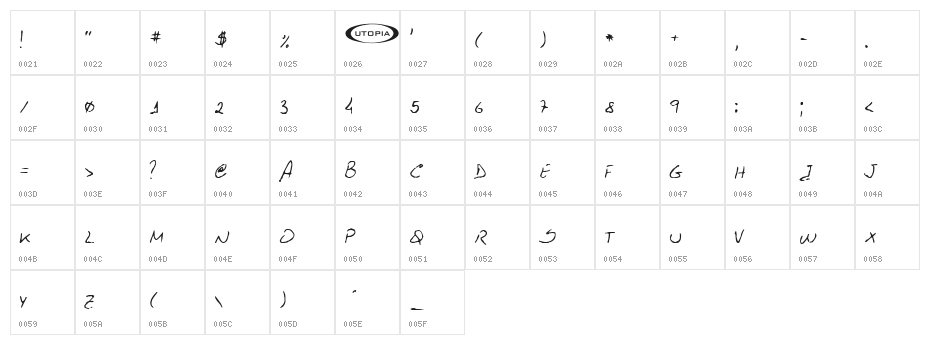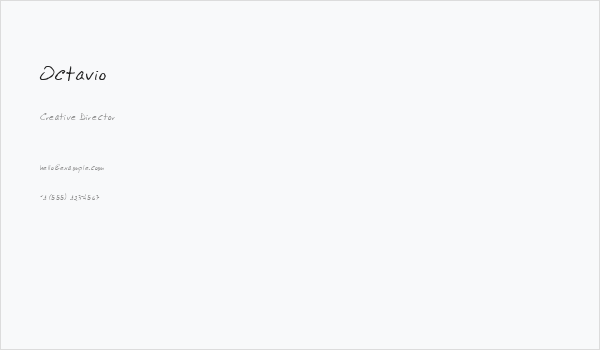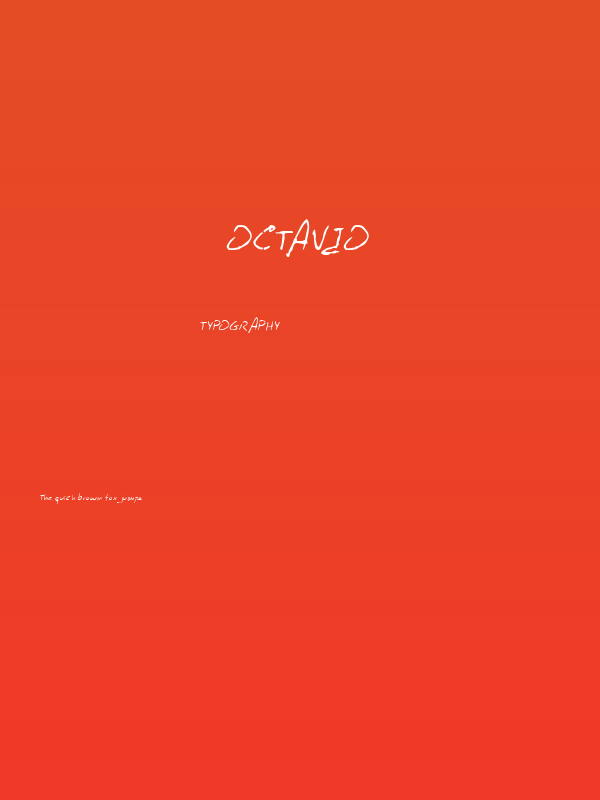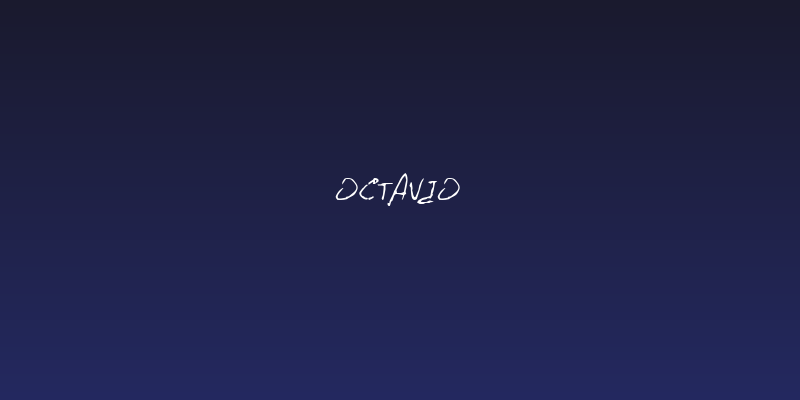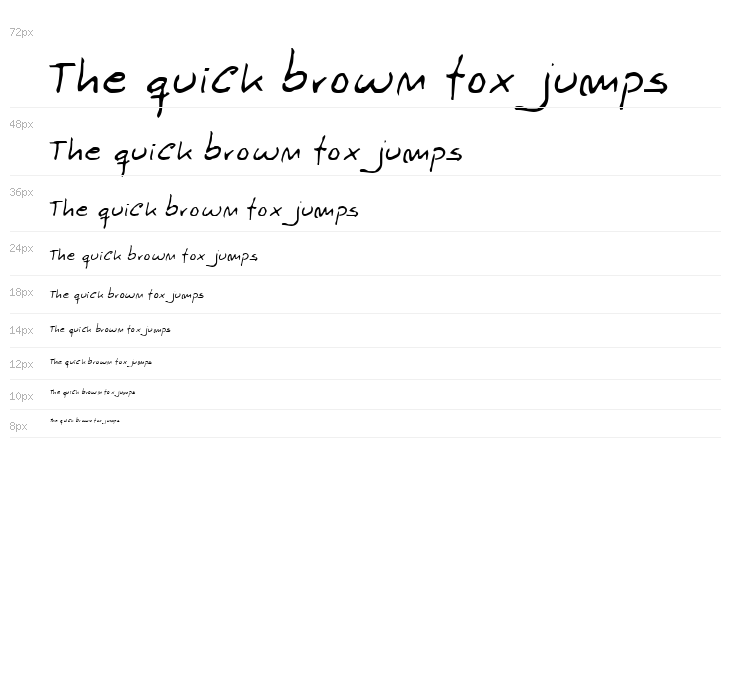
Octavio Font
Octavio Description
This font exhibits a unique handwritten style, characterized by its fluid and organic strokes. The letters are slightly slanted, giving a casual and informal appearance. The uppercase and lowercase letters maintain a consistent style, with some letters featuring distinctive loops and curves. The numerals and special characters are designed to match the overall aesthetic, ensuring a cohesive look. The font's playful and artistic nature makes it suitable for creative projects. Its irregularities and personal touch evoke a sense of individuality and charm.
| Overall Style | Casual and Artistic |
| Use Case | Logos, Invitations, Artistic Projects |
| Proposed Projects | Ideal for greeting cards, invitations, personal branding, and artistic projects. |